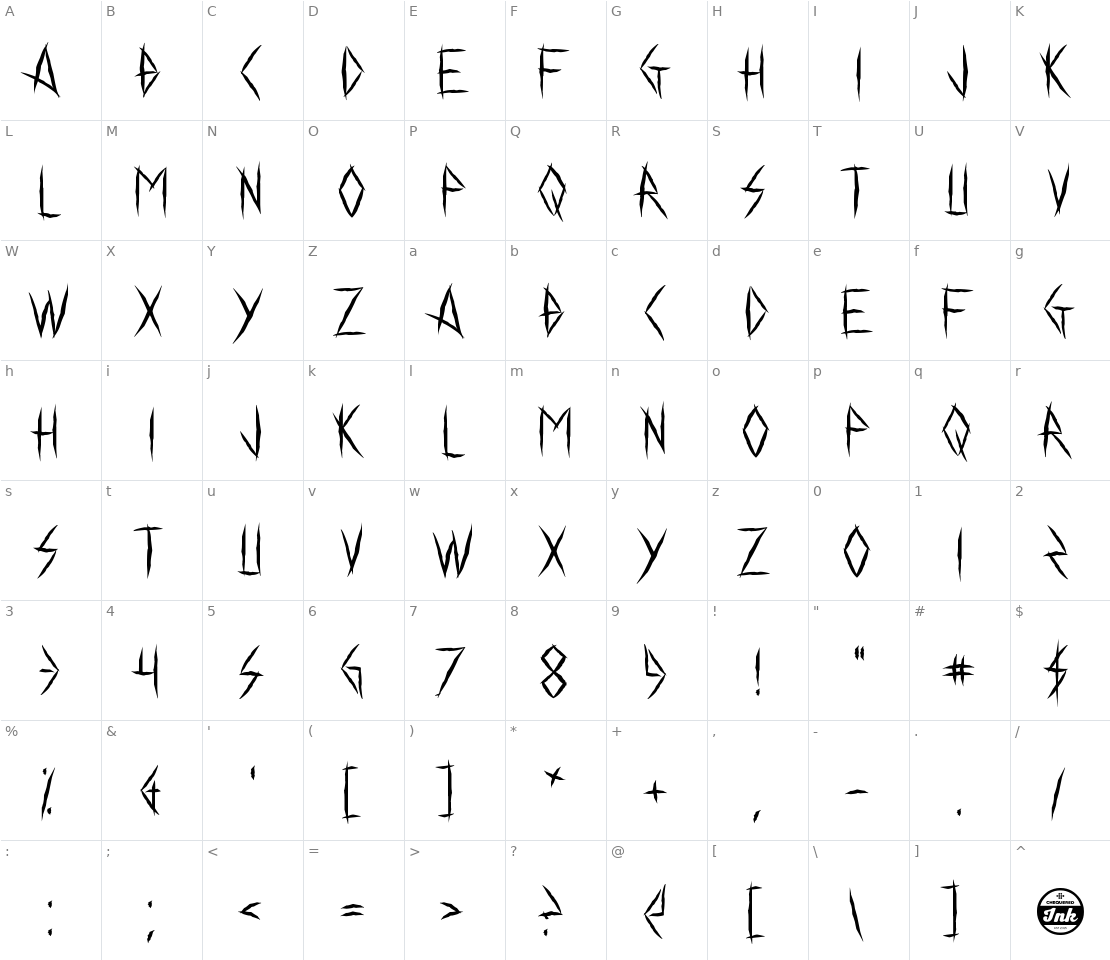
Chelsea Smile
Chelsea Smile is a jagged, aggressive display face from Chequered Ink with letterforms that feel like they've been slashed apart and reassembled with sharp, spiky edges. Everything about it skews dark and hostile, from the angular cuts to the uneven baselines, making it a natural fit for horror posters, metal band logos, and anything that needs to feel genuinely menacing. Strictly a headline face, best kept loud and large.